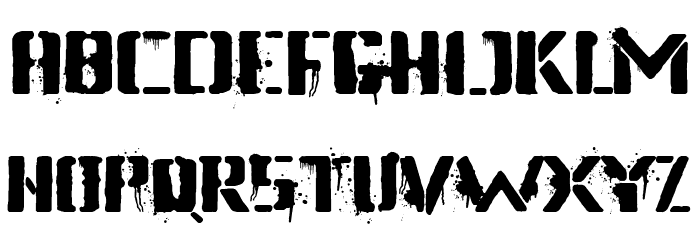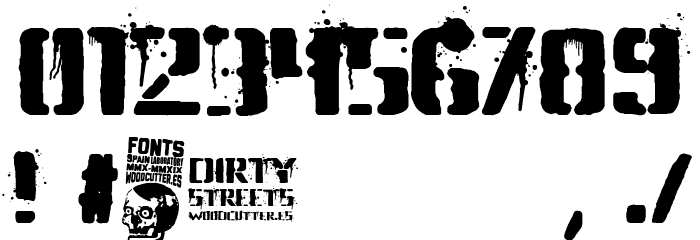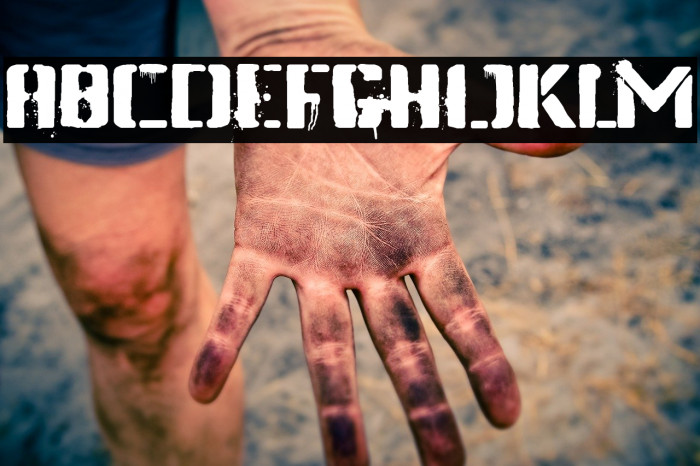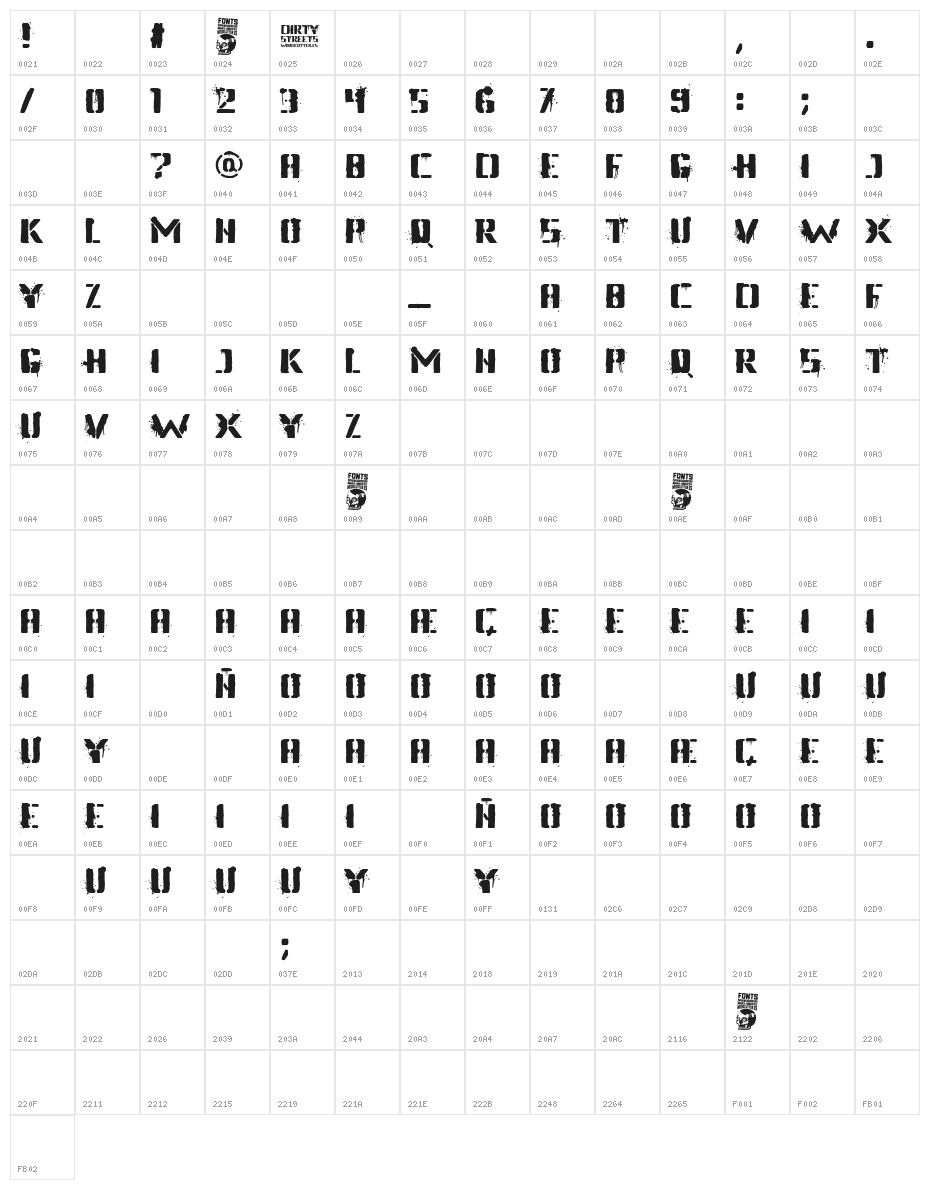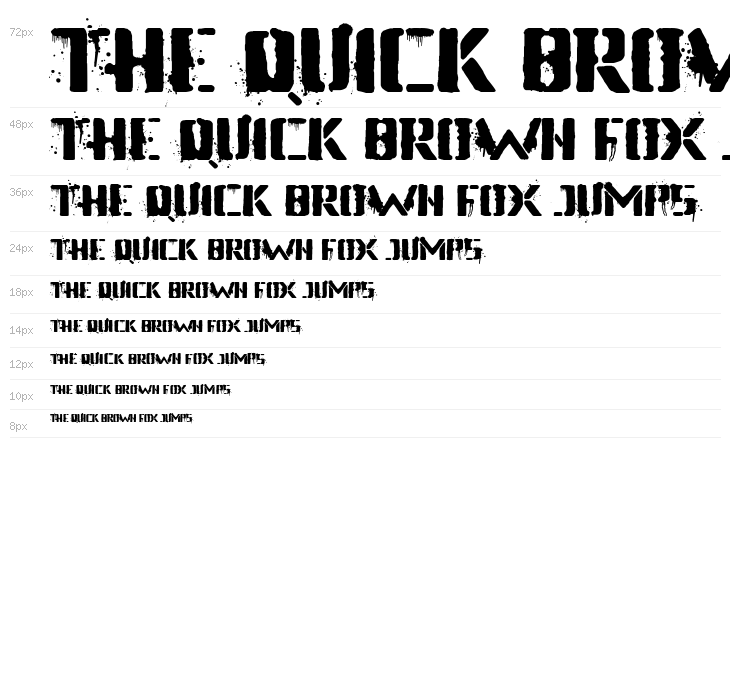
Dirty Streets Font
This font features a gritty, urban aesthetic with a stencil-like appearance. The characters are bold and rugged, with uneven edges and a distressed texture that gives the impression of being spray-painted or weathered over time. The uppercase and lowercase letters maintain a consistent style, with sharp angles and a blocky structure. Numbers and special characters follow the same design, enhancing the cohesive look. This font exudes a rebellious, street-inspired vibe, perfect for projects that require a bold, eye-catching statement.
A gritty, stencil-style font with a distressed, urban appearance.
- Font: Dirty Streets
- Proposed Projects: Ideal for street art designs, music album covers, urban-themed posters, and edgy branding projects.
- Overall Style: Urban, Grunge, Rebellious